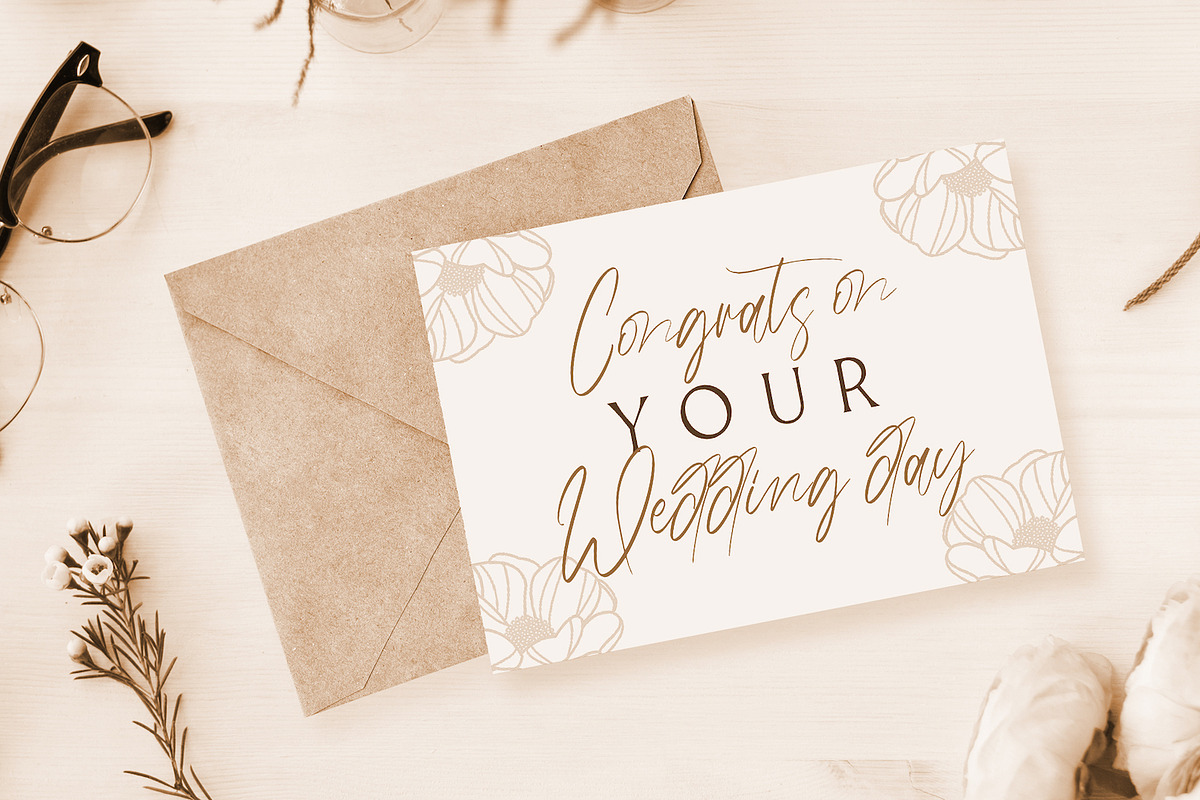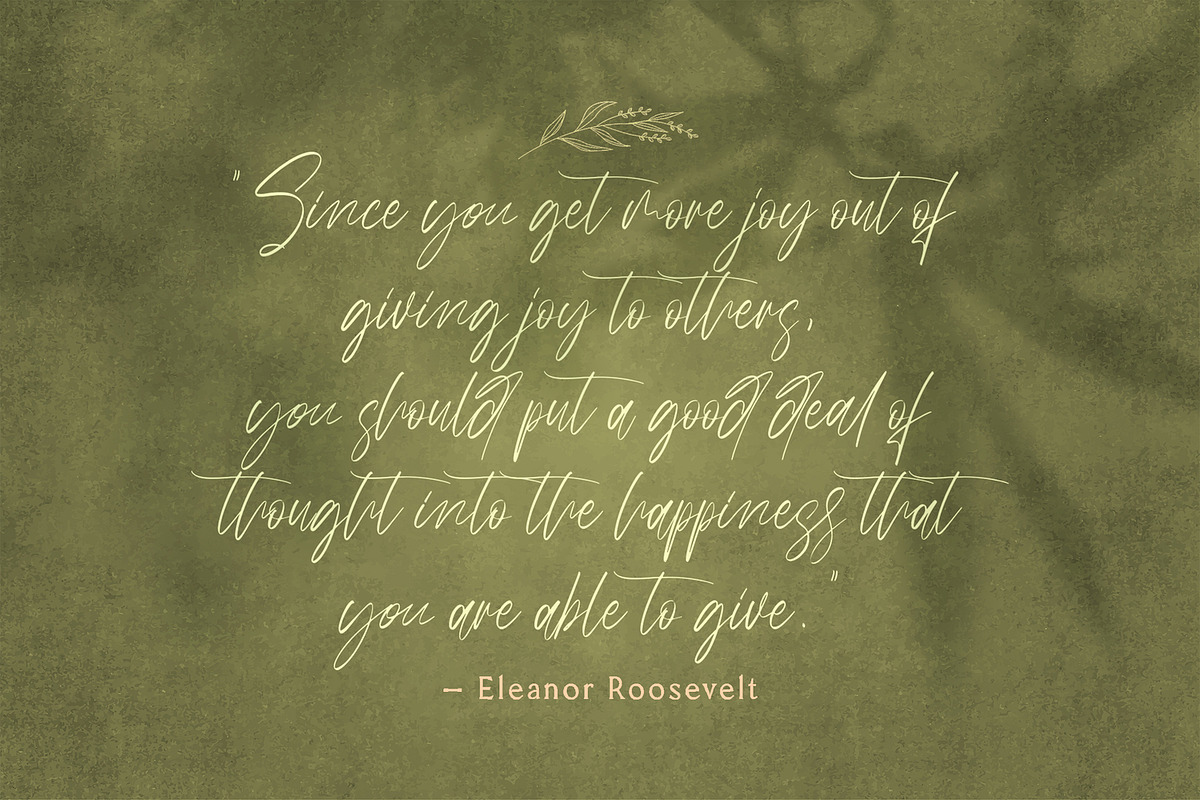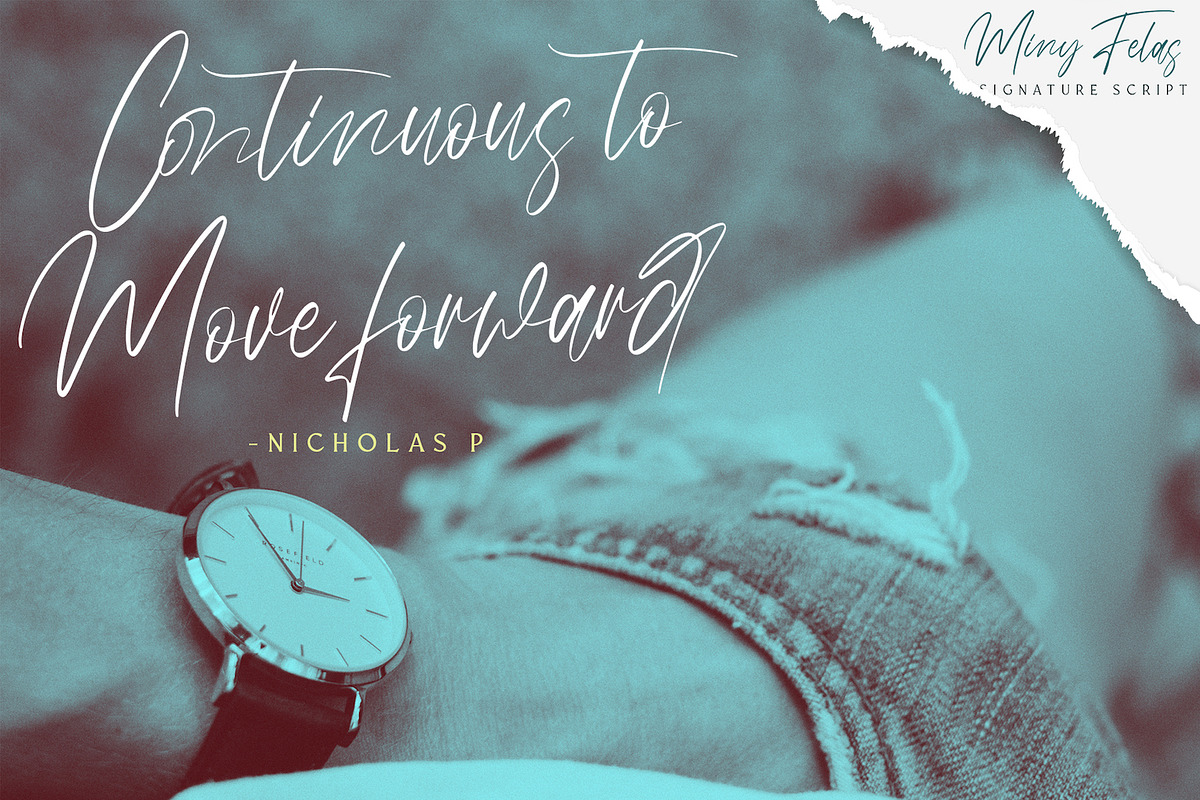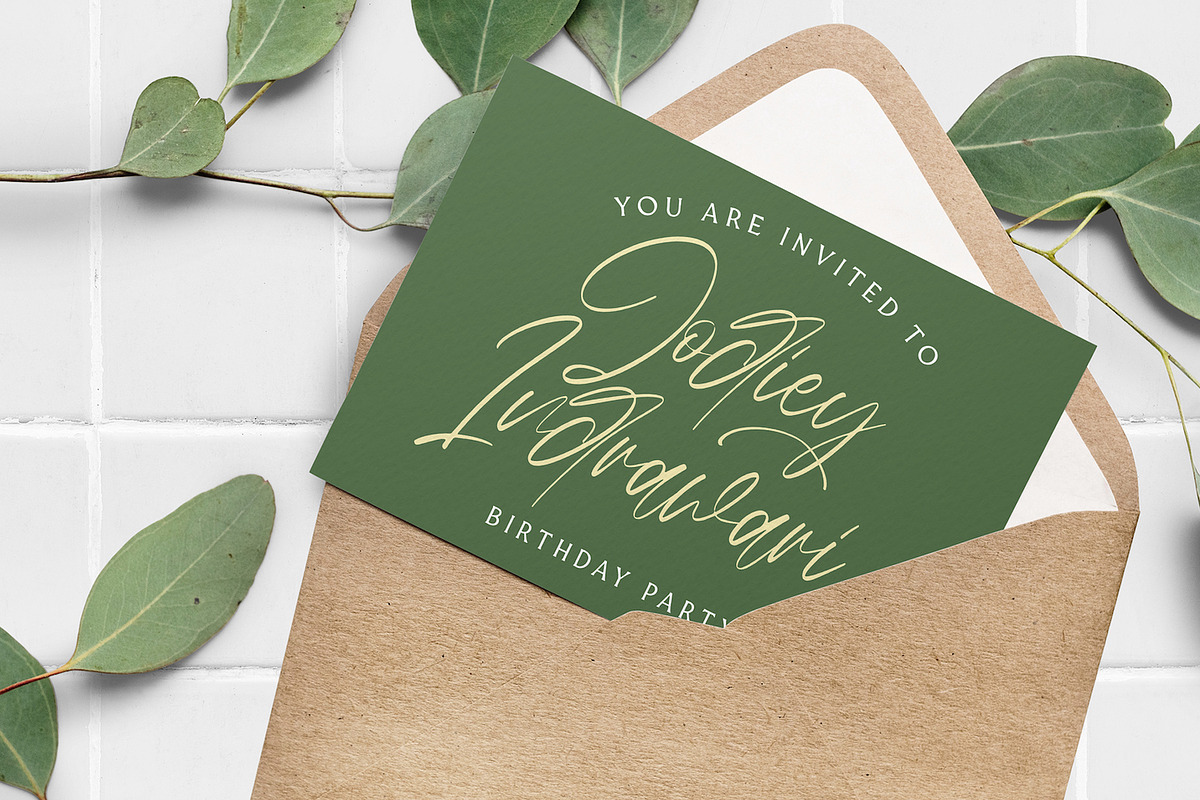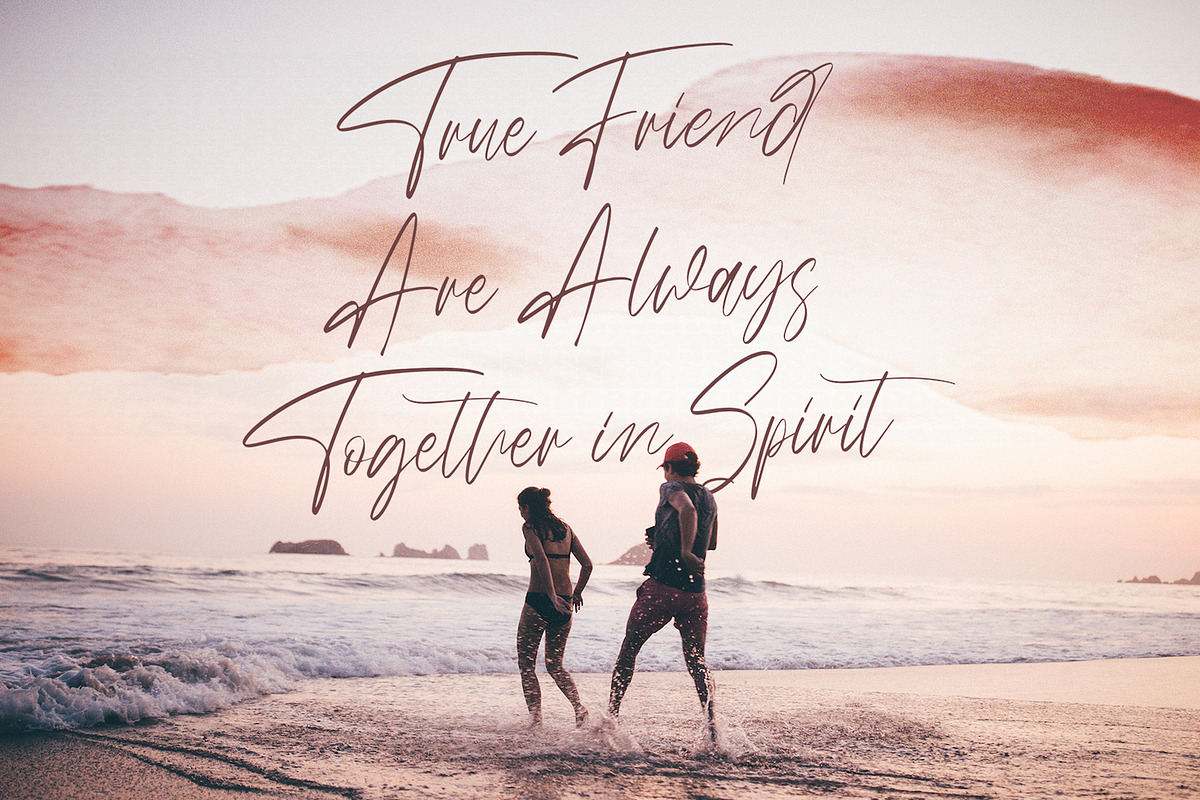
Miny Fellas - Handwritten Font
Introducing Miny Fellas - Modern Handwritten Font
Miny Fellas is a Signature Script Font with Handwritten Style. The Miny Fellas font was created with authentic handwritting brush pen. This font is perfect for fashion brand, wedding invitation, business card, logo brand, signature, and then calligraphy.
- This Font Template contains Classy, Elegant, Creative, Cool and has a Unique Concept.
Why Miny Fellas - Handwritten Font is worth a look
Miny Fellas - Handwritten Font by StringLabs fits naturally into Branding, posters, packaging, typography.